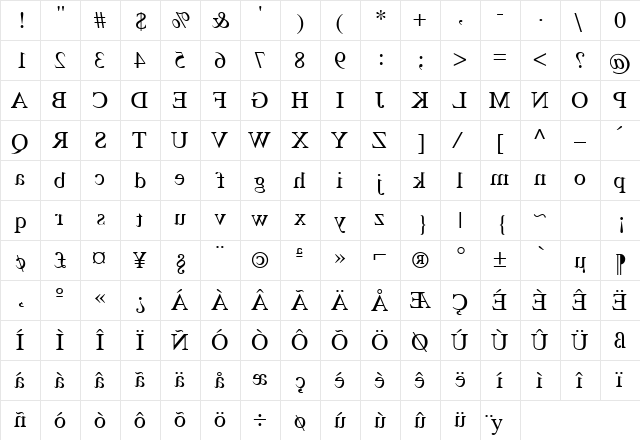
TimesMirror Regular
Design Context for TimesMirror Typeface
TimesMirror takes a measured approach to typography — its balanced proportions and neutral character make it a reliable workhorse for both digital and print work.
Pro Tip: Use TimesMirror in both headline and body roles to test its range before committing to a single application.